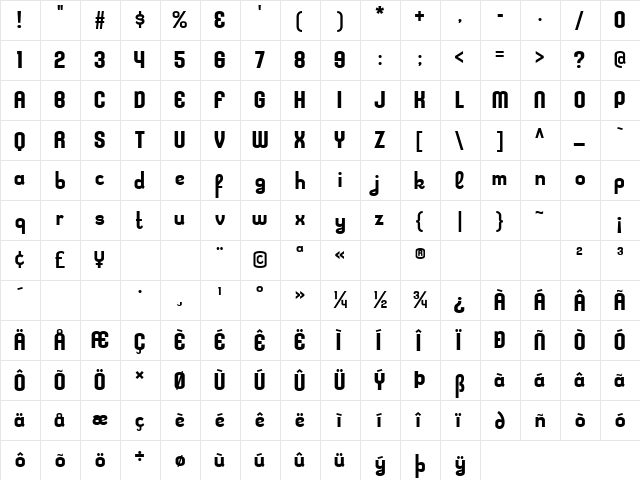
Kleptocracy Bold
Design Context for Kleptocracy Typeface
Kleptocracy offers clean, dependable letterforms without strong stylistic allegiance, making it a practical choice for designers who need flexibility. Its bold stroke weight gives it real presence on the page.